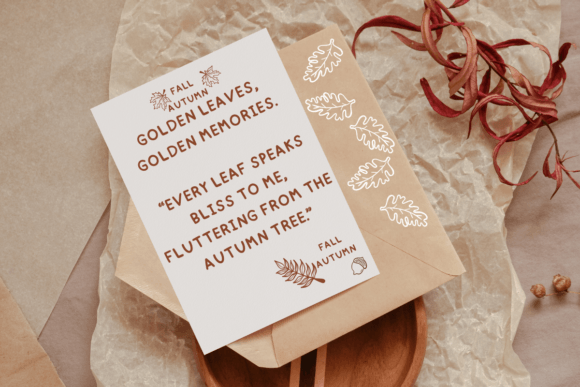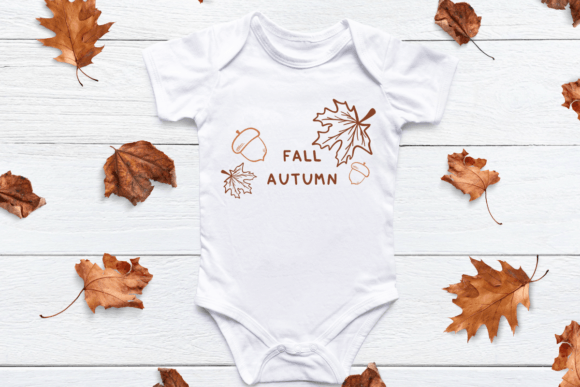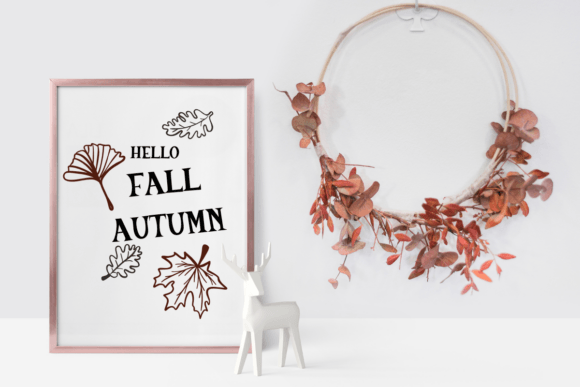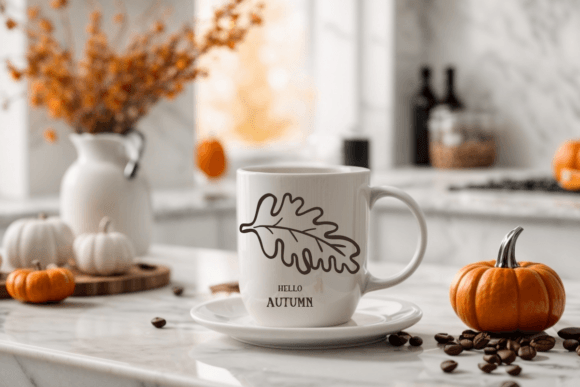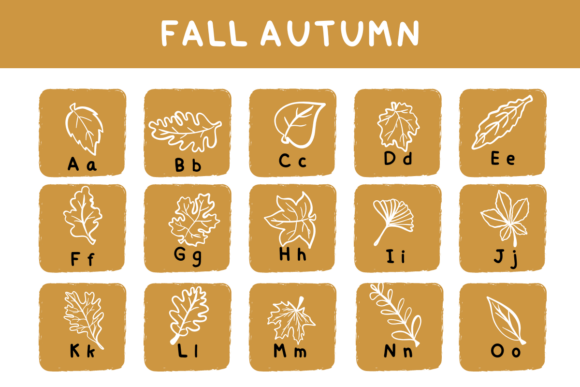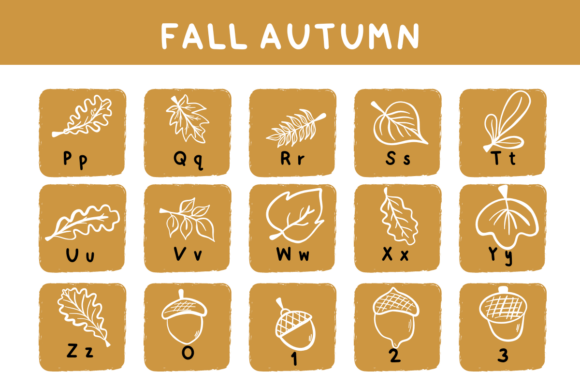
Fall Autumn Font: Elevate Your Creative Projects with a Nature-Inspired Dingbats Font
As the seasons change and the warmth of autumn sets in, designers and crafters are on the lookout for inspiration to infuse their creative projects with the cozy, natural beauty of fall. If you’re searching for a font that embodies the essence of autumn, look no further than the Fall Autumn Font. This charming dingbats font is specifically designed with a nature theme, making it the perfect addition to a wide range of creative endeavors.
What is Fall Autumn Font?
Fall Autumn Font is a unique dingbats font that features an assortment of nature-inspired elements, including leaves, flowers, fruits, and other seasonal icons. This font is carefully crafted to bring the beauty of autumn to your designs, allowing you to add a touch of warmth and coziness to your projects. With its extensive collection of glyphs, Fall Autumn Font offers endless possibilities for creative expression.
Uses for Fall Autumn Font
Fall Autumn Font is an incredibly versatile font that can be used in a variety of creative projects, including:
- Wedding Invitations: Add a touch of autumnal romance to your wedding invitations, save-the-dates, and other stationery with this beautiful font.
- DIY and Crafts: Use Fall Autumn Font to create personalized gifts, decorations, and other handmade crafts that showcase your creativity.
- Decorations: Design stunning fall-themed decorations, such as garlands, banners, and signs, with this charming font.
- Logos and Branding: Incorporate Fall Autumn Font into your logo design or branding materials to evoke a sense of warmth and approachability.
- Social Media Graphics: Create engaging social media graphics, such as fall-themed Facebook posts, Instagram stories, and Pinterest pins, with this eye-catching font.
Benefits of Using Fall Autumn Font
Fall Autumn Font offers numerous benefits for designers and crafters, including:
- Unique and Creative: Stand out from the crowd with this distinctive dingbats font that adds a touch of autumnal charm to your designs.
- Easily Customizable: Experiment with different font sizes, colors, and styles to tailor Fall Autumn Font to your specific design needs.
- Time-Saving: With its extensive collection of glyphs, Fall Autumn Font saves you time and effort in creating intricate designs from scratch.
- Scalable: Use Fall Autumn Font in a variety of design applications, from business cards to billboards, without compromising on quality.
Tips for Using Fall Autumn Font
To get the most out of Fall Autumn Font, consider the following tips:
- Mix and Match: Combine Fall Autumn Font with other fonts to create visually appealing contrast and hierarchy in your designs.
- Experiment with Colors: Try out different color schemes and palettes to find the perfect match for your autumn-themed designs.
- Play with Size: Vary the font size to create emphasis and add visual interest to your designs.
| Font Name | Fall Autumn Font |
| Author | Bee piyanuch |
Fall Autumn Font is a versatile and charming dingbats font that brings the beauty of nature to your creative projects. With its extensive collection of glyphs and ease of use, this font is perfect for designers and crafters looking to add a touch of autumnal charm to their designs. Whether you’re working on wedding invitations, DIY crafts, or logos, Fall Autumn Font is sure to inspire your creativity and elevate your projects to the next level.